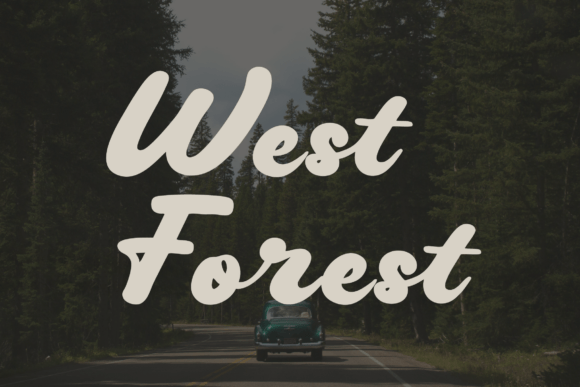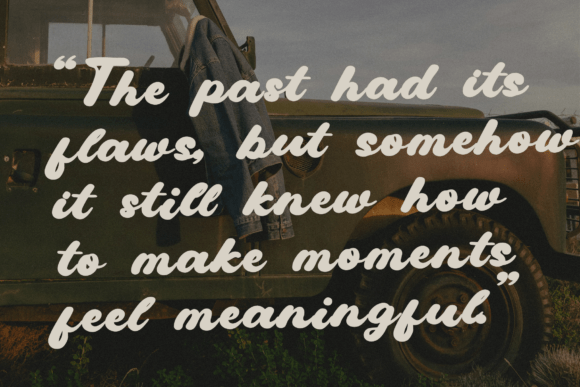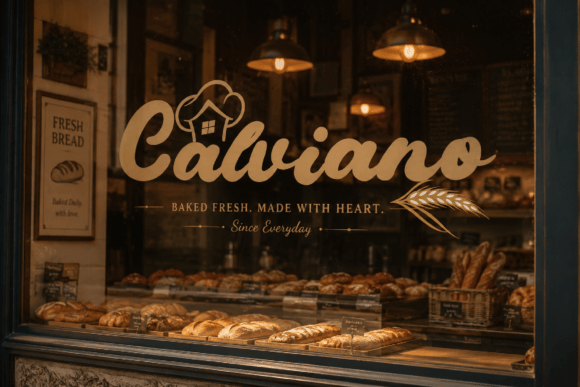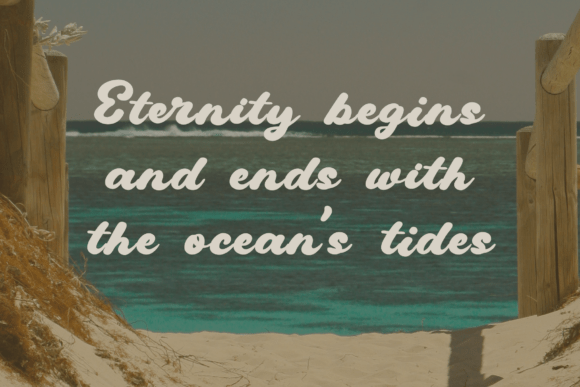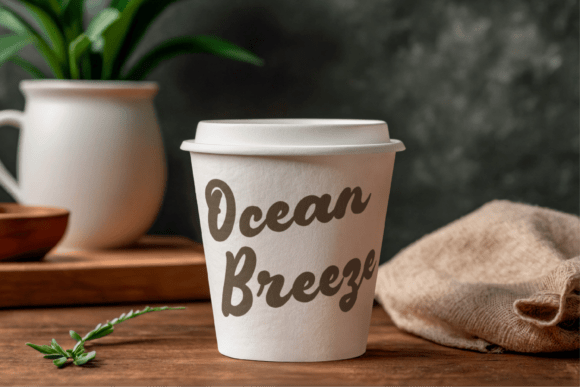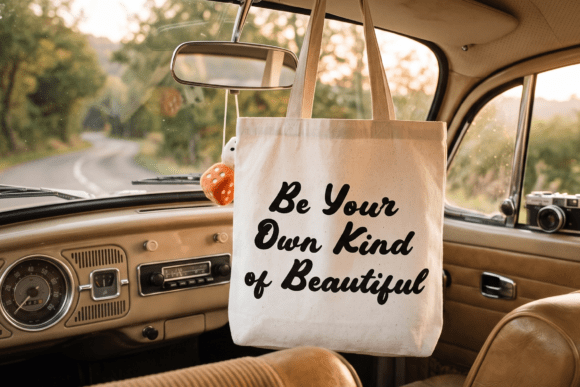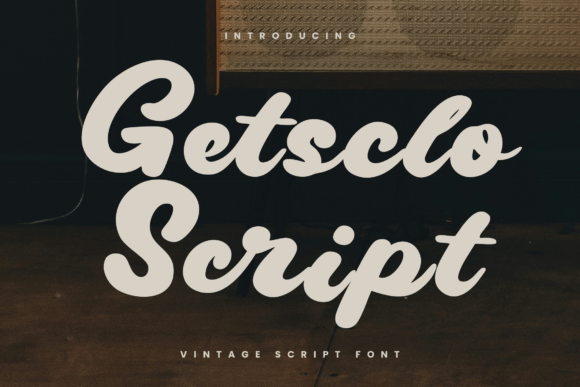
Introducing Getsclo Script: A Timeless Vintage Font for Your Creative Projects
Are you looking for a font that exudes warmth, nostalgia, and authenticity? Look no further than Getsclo Script, a bold and charming vintage font that’s perfect for adding a touch of elegance to your creative projects. Inspired by classic storefront signage and mid-century typography, Getsclo Script is a retro-inspired font that’s sure to make your designs stand out.
The Inspiration Behind Getsclo Script
Getsclo Script draws its inspiration from the classic storefront signage and mid-century typography that evokes a sense of nostalgia and timelessness. The font’s flowing curves and strong character presence make it clear and catchy to the viewer, perfect for capturing the attention of your audience. Whether you’re designing a logo for an artisanal bakery, an appealing window display, or a vintage-themed food package, Getsclo Script brings a touch of elegance and sophistication to your creative projects.
Key Features of Getsclo Script
- Bold and charming design: Getsclo Script features a bold and charming design that’s perfect for making a statement.
- Flowing curves and strong character presence: The font’s flowing curves and strong character presence make it clear and catchy to the viewer.
- Retro-inspired: Getsclo Script is a retro-inspired font that’s perfect for adding a touch of nostalgia and timelessness to your designs.
- Elegant and sophisticated: The font’s elegant and sophisticated design makes it perfect for a variety of applications, from logos and brand identities to product packaging and labels.
Applications for Getsclo Script
Getsclo Script is an ideal choice for a variety of applications, including:
- Logos and brand identities: Getsclo Script is perfect for creating unique and memorable logos and brand identities that stand out from the crowd.
- Storefront signage: The font’s bold and charming design makes it perfect for storefront signage, from cafes and bakeries to barbershops and boutiques.
- Product packaging and labels: Getsclo Script is a great choice for product packaging and labels, adding a touch of elegance and sophistication to your products.
- Posters and event flyers: The font’s clear and catchy design makes it perfect for posters and event flyers, helping you to grab the attention of your audience.
- Book covers and editorial titles: Getsclo Script is a great choice for book covers and editorial titles, adding a touch of elegance and sophistication to your publications.
- Greeting cards and invitations: The font’s charming design makes it perfect for greeting cards and invitations, adding a personal touch to your correspondence.
- Menu designs: Getsclo Script is a great choice for menu designs, helping you to create enticing and memorable menus that stand out from the crowd.
Why Choose Getsclo Script?
So why choose Getsclo Script for your creative projects? Here are just a few reasons:
- Unique and memorable design: Getsclo Script features a unique and memorable design that’s sure to make your designs stand out.
- Timeless appeal: The font’s retro-inspired design has a timeless appeal that will never go out of style.
- Professional sophistication: Getsclo Script adds a touch of professional sophistication to your designs, perfect for creating elegant and memorable creative projects.
- Ease of use: The font is easy to use and works well in a variety of applications, from logos and brand identities to product packaging and labels.
| Font Name | Gestclo Font |
In conclusion, Getsclo Script is a bold and charming vintage font that’s perfect for adding a touch of elegance and sophistication to your creative projects. With its flowing curves, strong character presence, and retro-inspired design, Getsclo Script is an ideal choice for a variety of applications, from logos and brand identities to product packaging and labels. So why wait? Try Getsclo Script today and see the difference it can make in your designs!